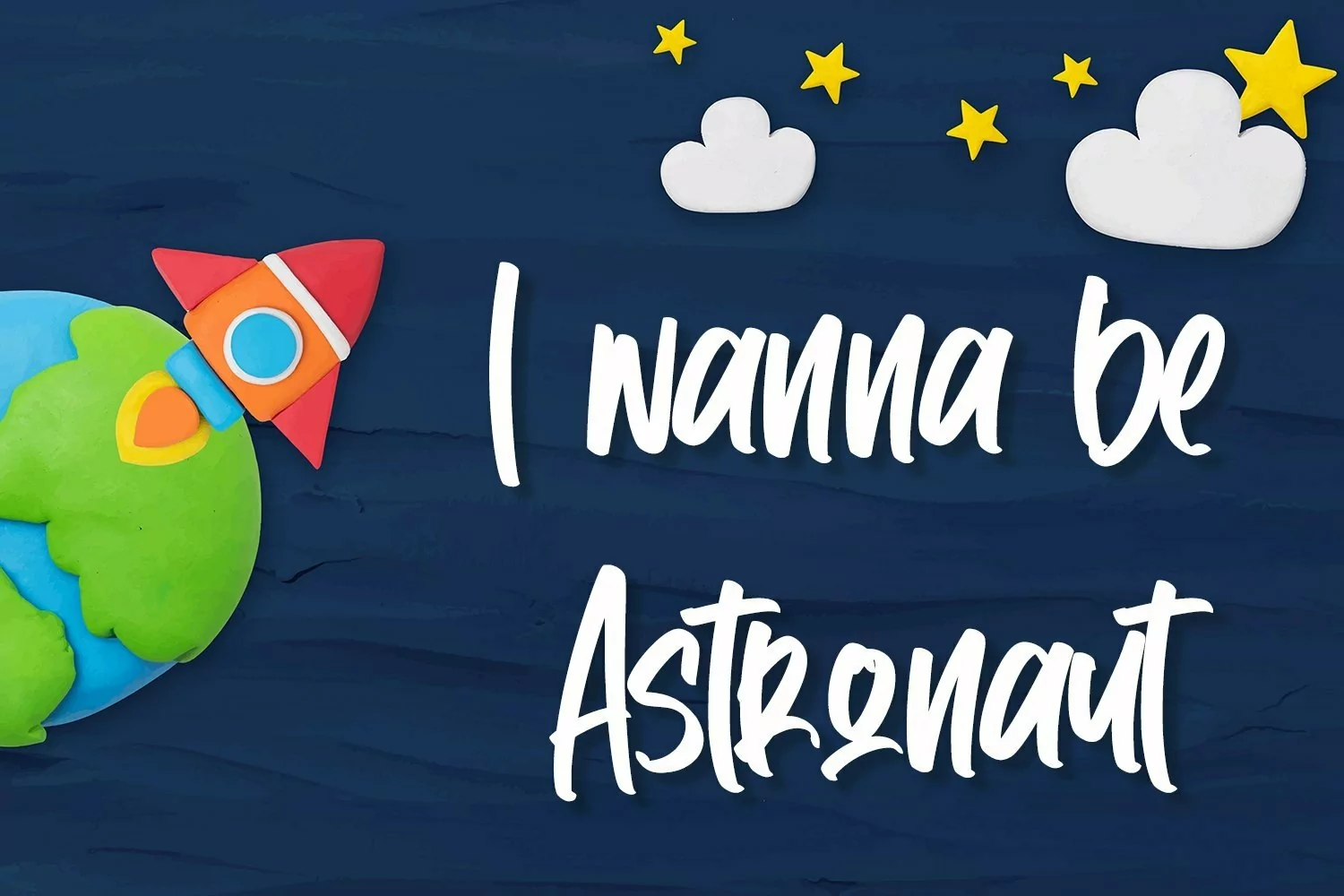
Web Font TheMaster - Cute Handletter Font that contain lowercase, uppercase, symbol, and also support multi language. There’s a lot ligatures in this font. This Font also comes with ligatures, alternates and many more. this font suitable for fashion, branding, catalog and other design what you want.
The Master